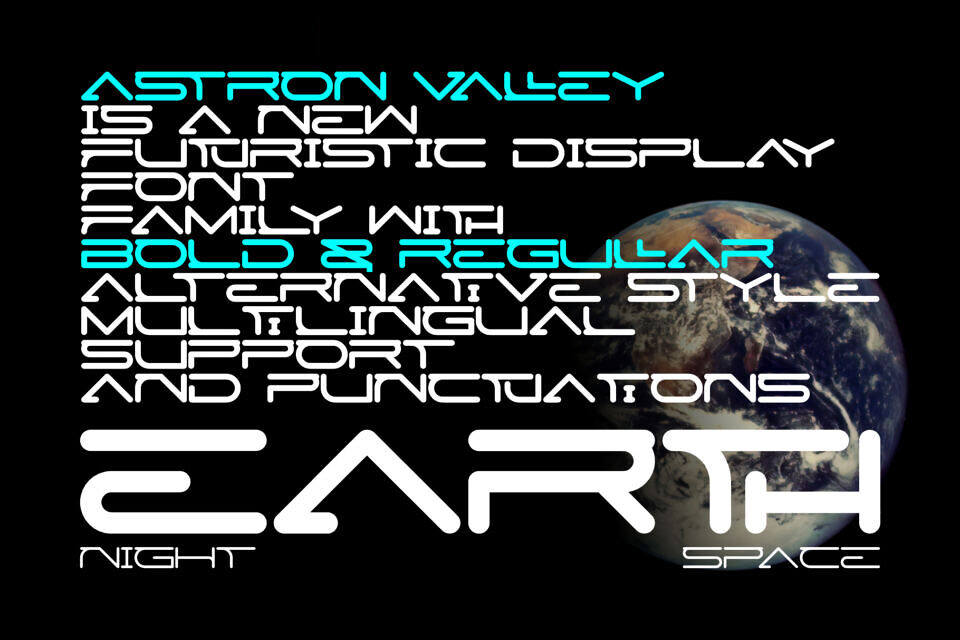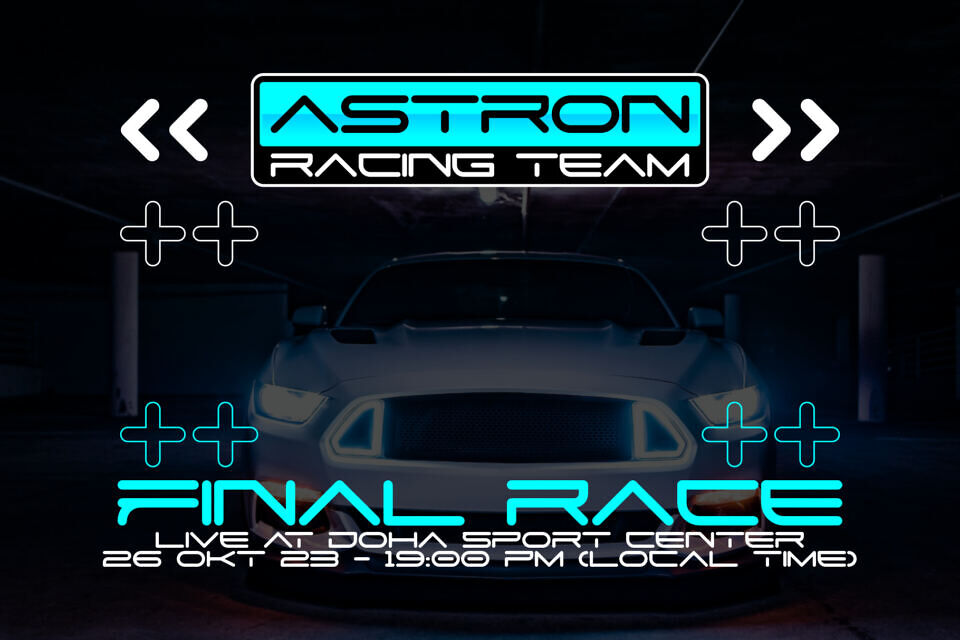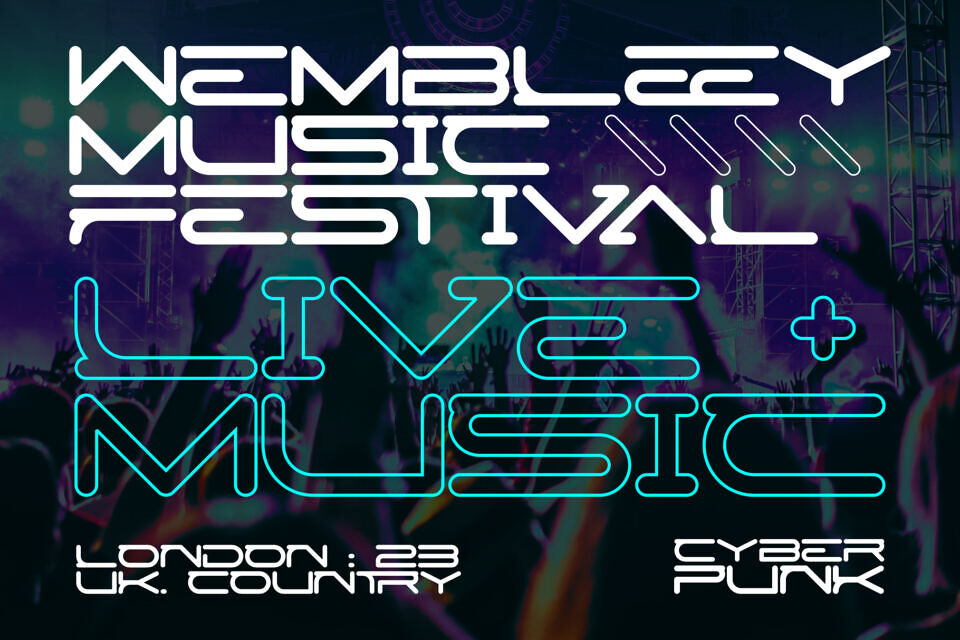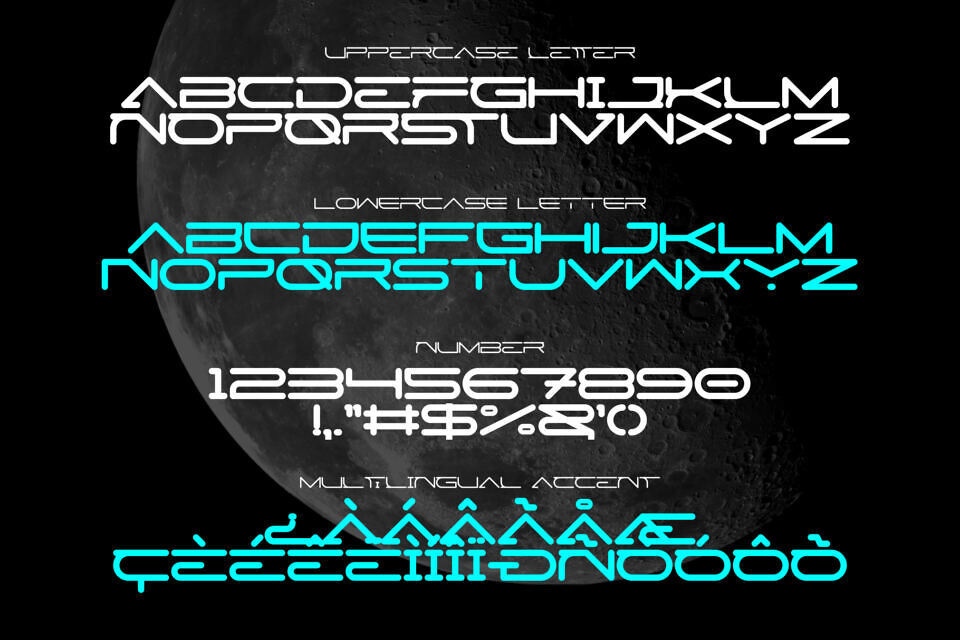
Astron Valley Font
Astron Valley is a cutting-edge futuristic display font crafted for modern creators who think beyond convention. Defined by sleek geometry, bold structure, and refined balance, it delivers a powerful visual impact for tech startups, digital branding, and innovative design projects.
Available in Regular and Bold weights, Astron Valley offers versatile expression across logos, posters, UI interfaces, and packaging. Each character embodies precision and motion, making this modern font the ultimate choice for brands that celebrate progress, technology, and contemporary sophistication.
Designed by: Figuree Studio